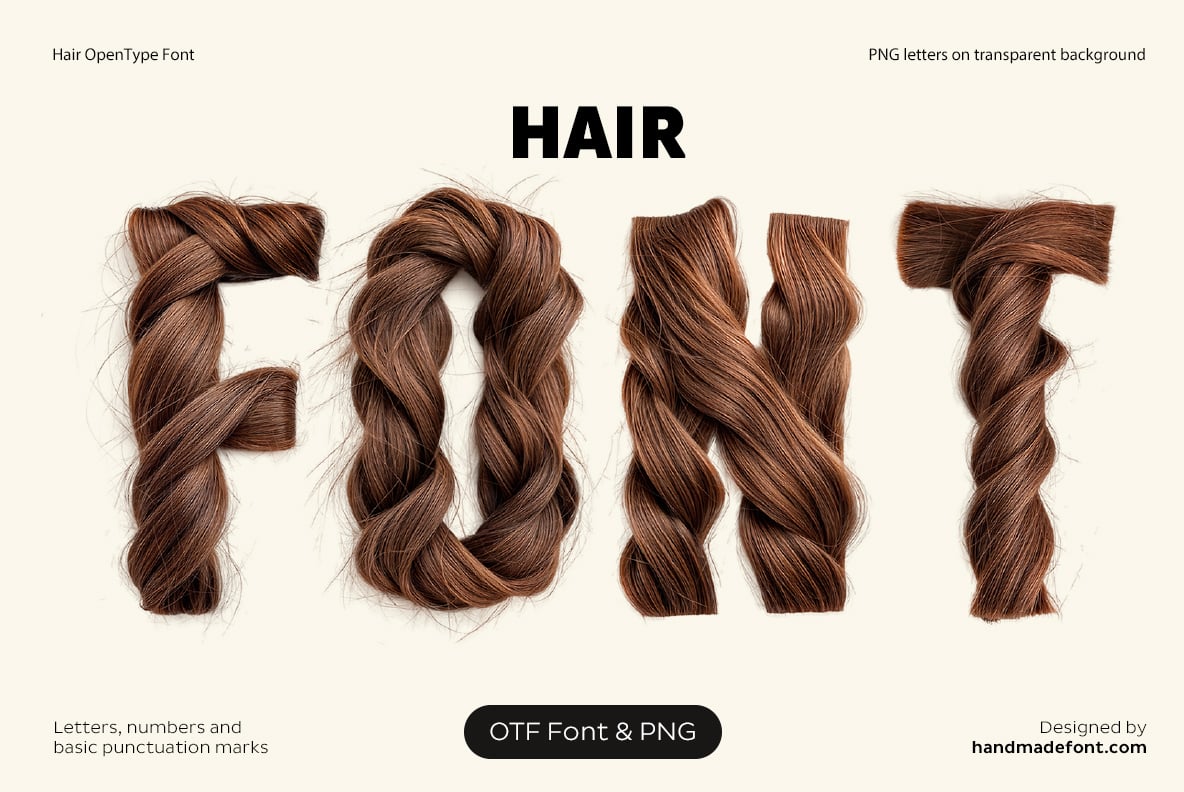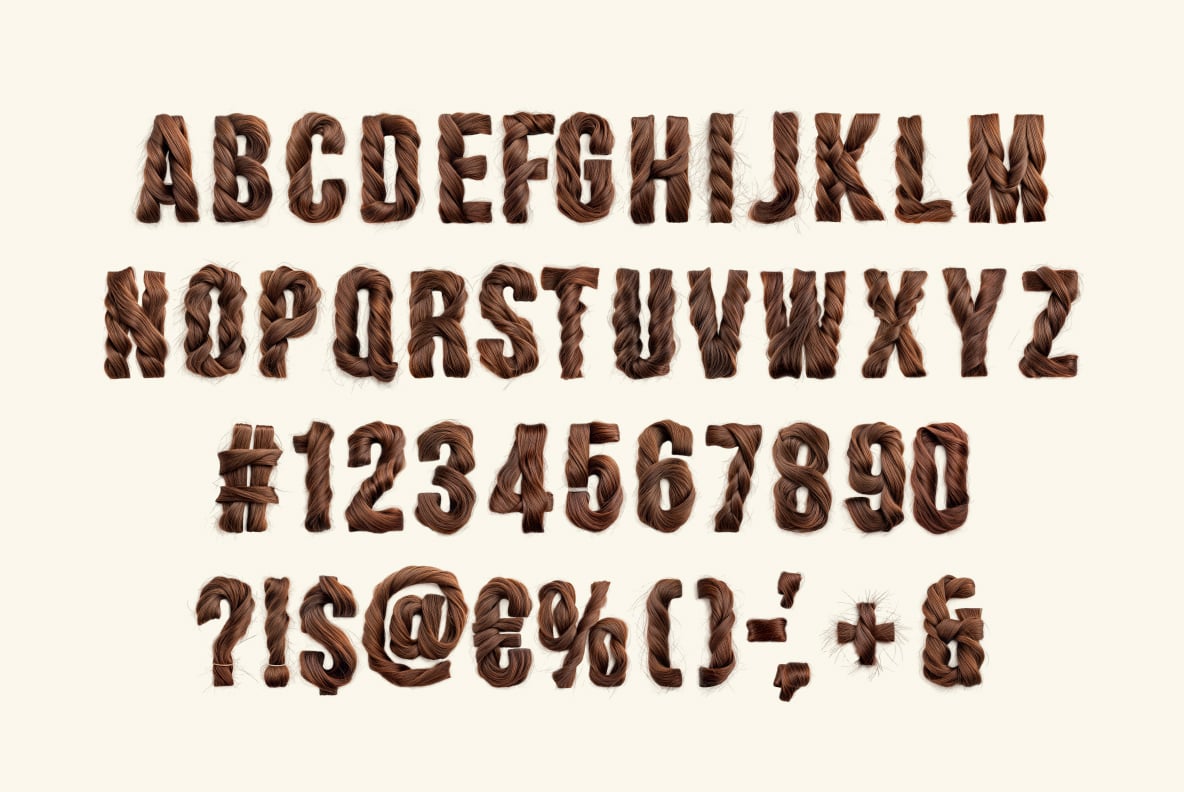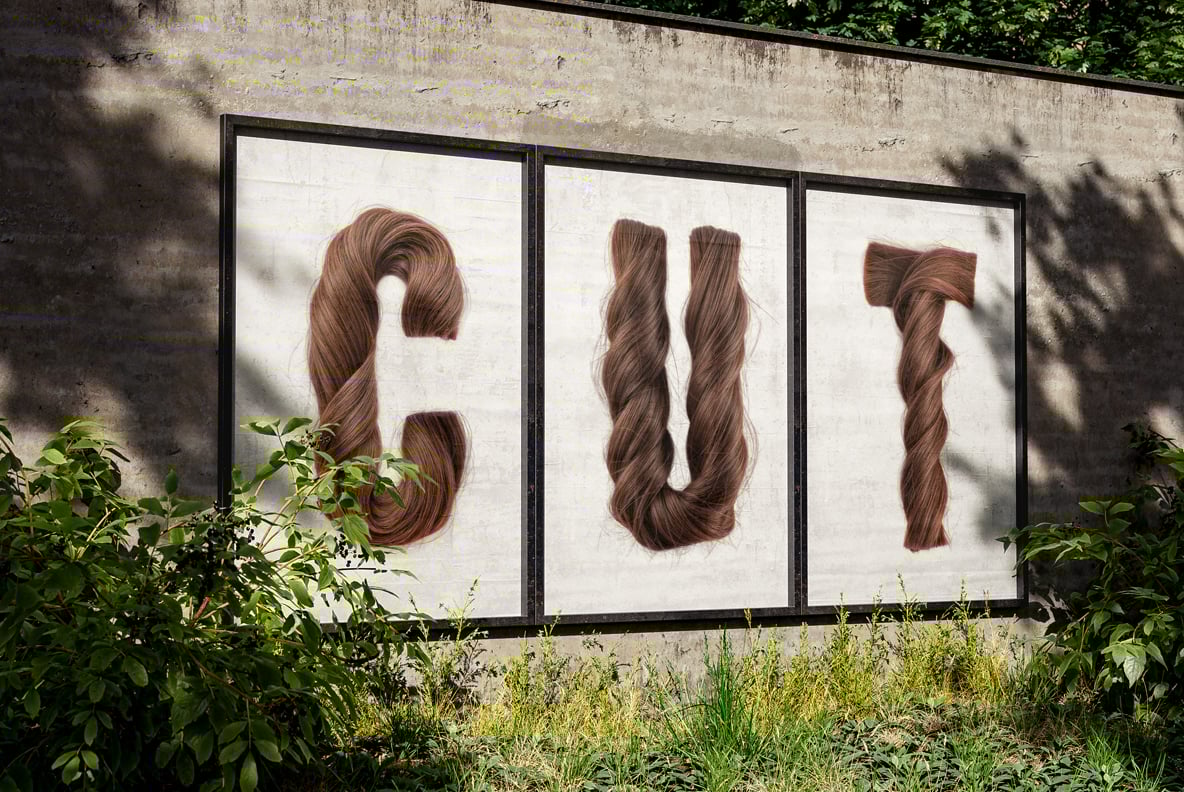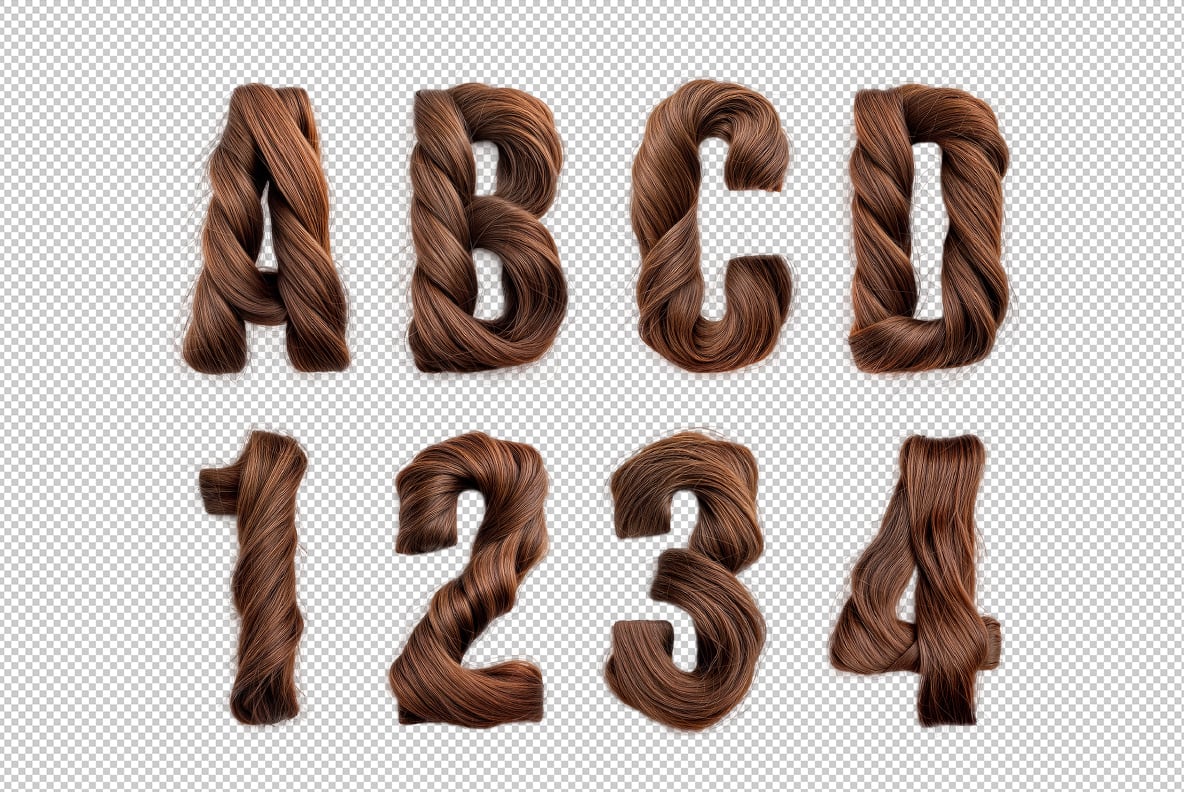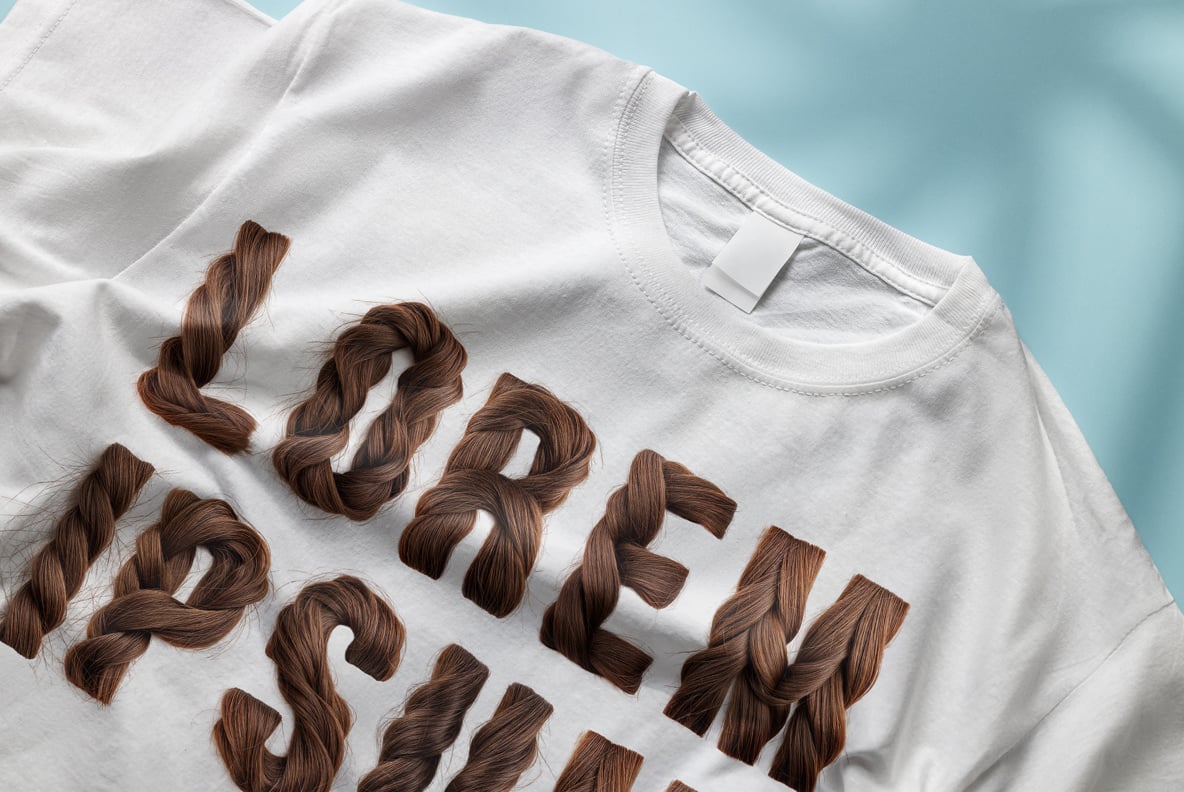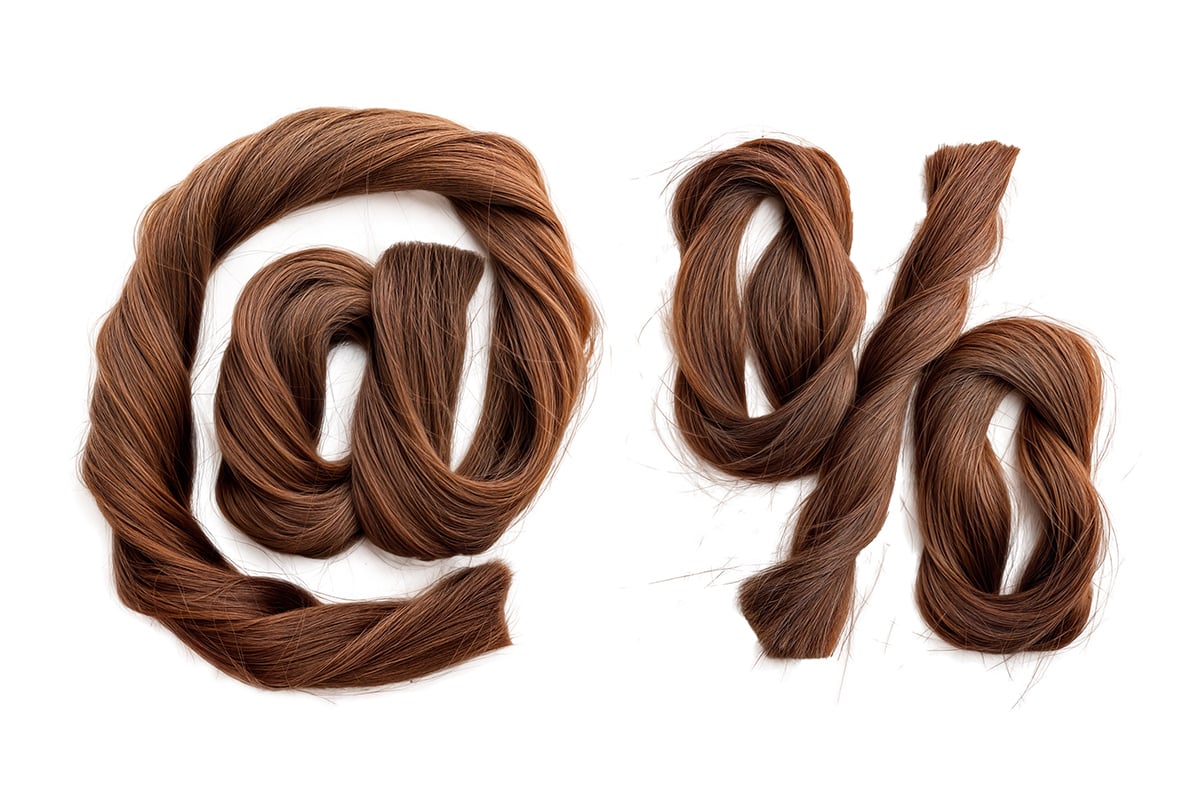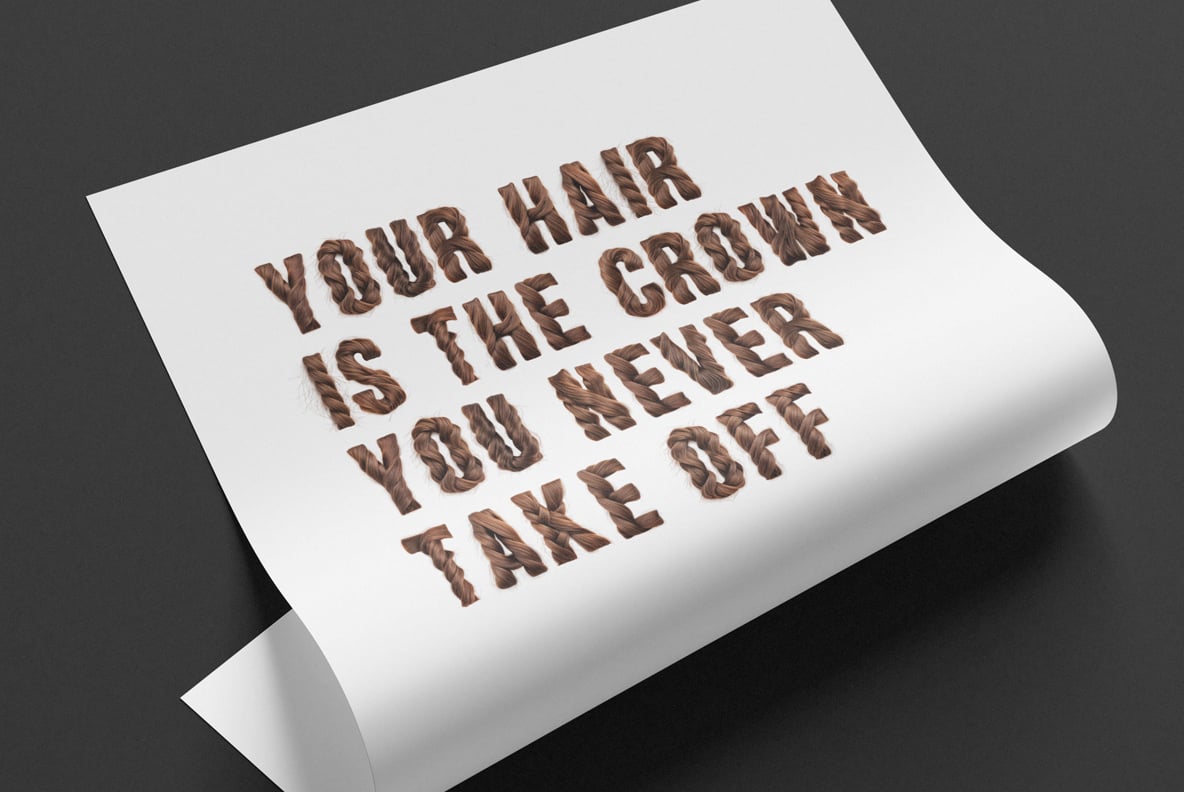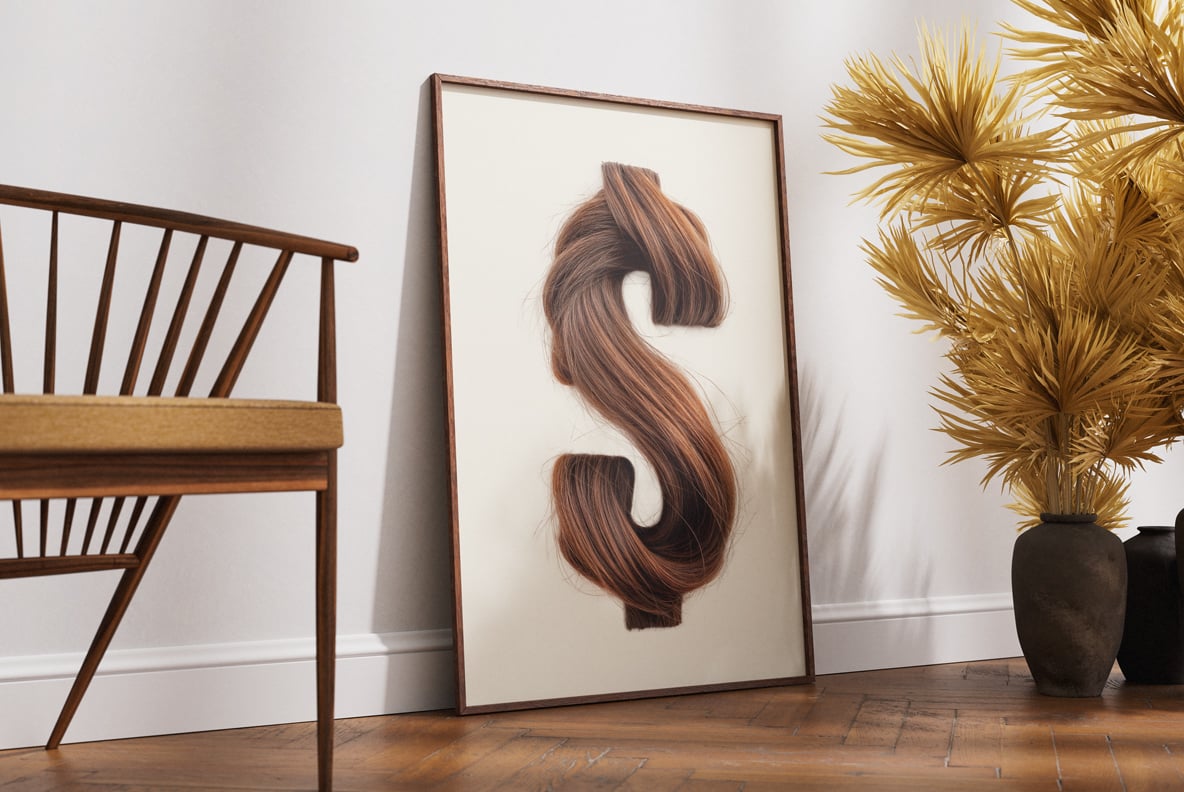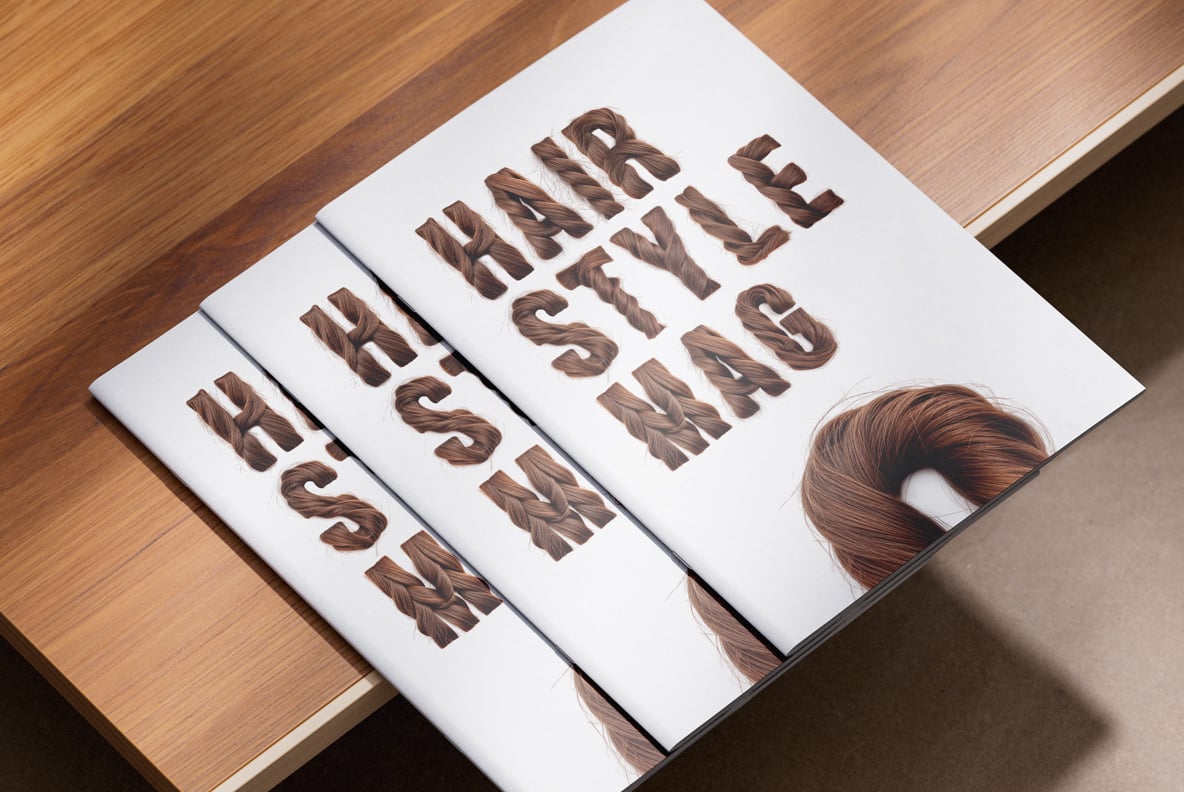
Hair Font
Style meets typography in Hair Font, a unique hair-inspired font where each letter is crafted from flowing, glossy strands. This hair alphabet transforms silky locks into stunning hair lettering, featuring elegant braids, voluminous curls, and sleek straight textures. Every character captures the beauty of hairstyles, from intricate plaits to soft waves, resembling real haircare magic. With rich haircolor tones and lifelike shine, this hair typography embodies the essence of hairgrowth, hairdye, and even playful hints of hairloss. Whether bold or delicate, Hair Font turns the art of haircuts into an expressive, stylish typographic masterpiece.